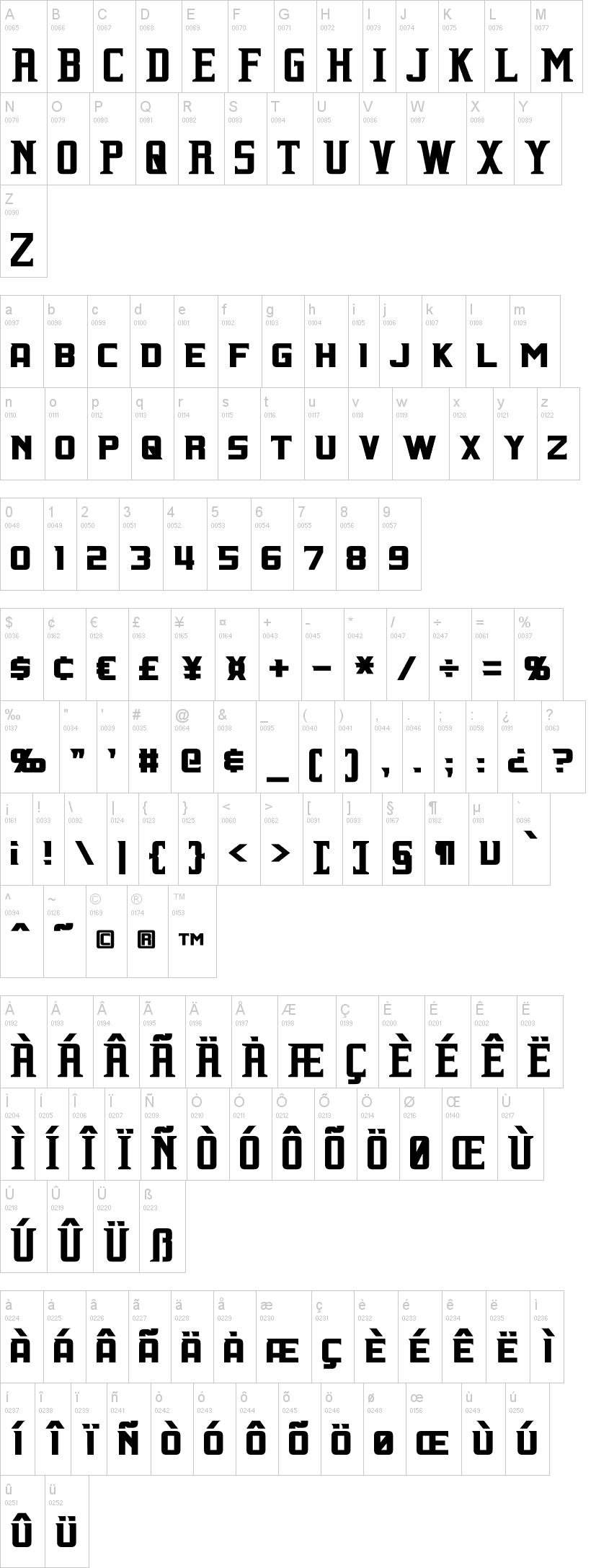
Indiana Italic.otfIndiana Bold.otfIndiana Bold Italic.otfNote of the authorIndiana is based on the comic logo of Marvel's "Further Adventures of Indiana Jones" line. It's a strong, bold font with a distinct retro style. Includes full alphabet, punctuation, accent characters, and euro. Includes italic version.